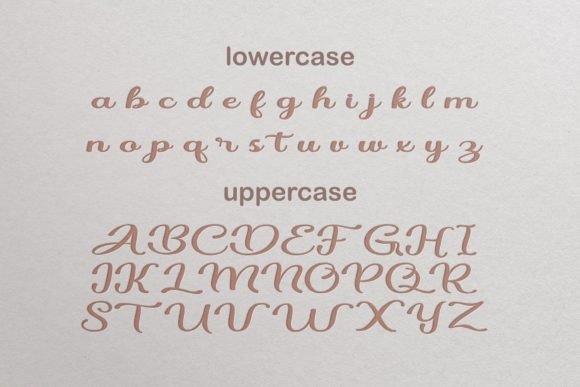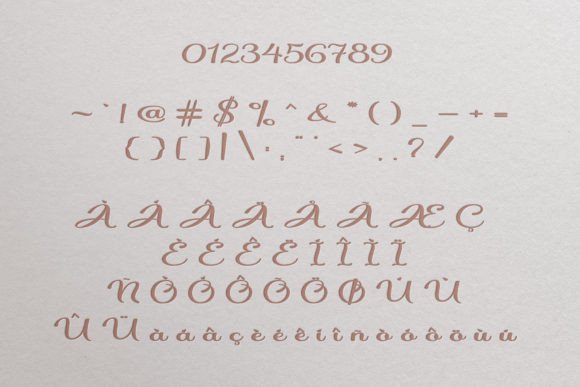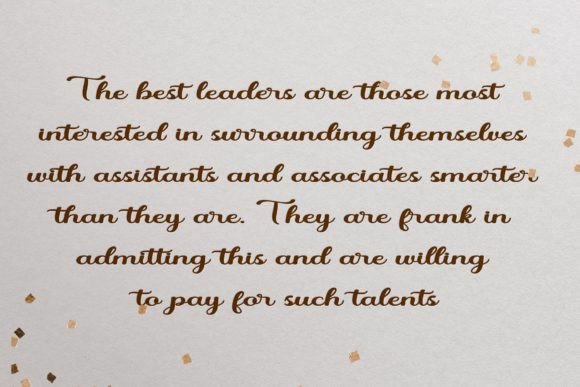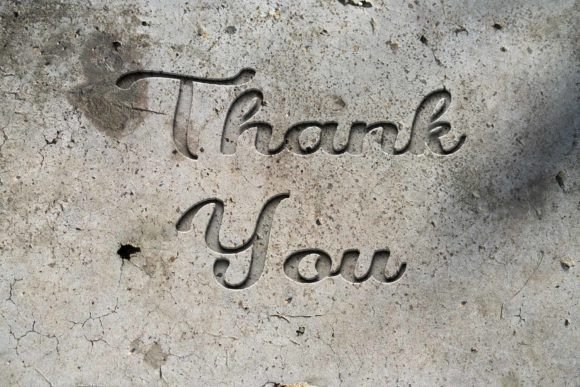
Discover the Charm of Danella Font: Elevate Your Designs with this Sweet Handwritten Script
Are you tired of using the same old fonts in your designs? Look no further! Danella Font is here to add a touch of sweetness and charm to your projects. This beautiful handwritten script font is perfect for designers and crafters who want to take their work to the next level. In this article, we’ll dive into the world of Danella Font and explore its features, benefits, and uses.
What is Danella Font?
Danella Font is a stunning handwritten script font that exudes warmth and elegance. Its unique and delicate strokes make it perfect for a wide range of design projects, from wedding invitations and branding materials to social media graphics and digital art. With its sweet and charming appearance, Danella Font is sure to capture the hearts of designers and audiences alike.
Features of Danella Font
So, what makes Danella Font so special? Here are some of its key features:
- Handwritten script: Danella Font is a genuine handwritten script font, giving it a personal and authentic touch.
- Unique strokes: The font’s delicate strokes and subtle variations make it stand out from other script fonts.
- Elegant and refined: Danella Font has an air of sophistication, making it perfect for high-end designs and luxury brands.
- Versatile: This font can be used for a wide range of projects, from digital designs to print materials.
Benefits of Using Danella Font
So, why should you choose Danella Font for your next project? Here are some benefits of using this beautiful font:
- Adds a personal touch: Danella Font’s handwritten script gives your designs a personal and human touch.
- Creates emotional connections: The font’s sweet and charming appearance can help create emotional connections with your audience.
- Enhances brand identity: Danella Font can help luxury brands and businesses establish a sophisticated and refined brand image.
- Easy to read: Despite its elegant appearance, Danella Font is easy to read and understand, making it perfect for body text and captions.
Uses of Danella Font
Danella Font is a versatile font that can be used for a wide range of design projects, including:
- Wedding invitations and stationery: Add a touch of romance and elegance to your wedding designs with Danella Font.
- Branding and packaging: Use Danella Font to create sophisticated and refined branding materials, such as logos, business cards, and product packaging.
- Social media graphics: Create eye-catching social media graphics, such as Instagram posts and Facebook covers, with Danella Font.
- Digital art and illustrations: Add a touch of whimsy and charm to your digital art and illustrations with Danella Font.
Tips for Using Danella Font
Here are some tips for getting the most out of Danella Font:
- Pair with contrasting fonts: Pair Danella Font with contrasting fonts, such as bold sans-serifs, to create visual interest.
- Experiment with colors: Try out different colors and textures to add depth and dimension to your designs.
- Use for headlines and titles: Use Danella Font for headlines and titles to add a touch of elegance and sophistication.
In conclusion, Danella Font is a beautiful and charming handwritten script font that can elevate your designs to new heights. With its unique strokes, elegant appearance, and versatility, Danella Font is perfect for designers and crafters who want to add a touch of sweetness and charm to their projects. So why wait? Fall in love with Danella Font and bring your projects to the highest levels!